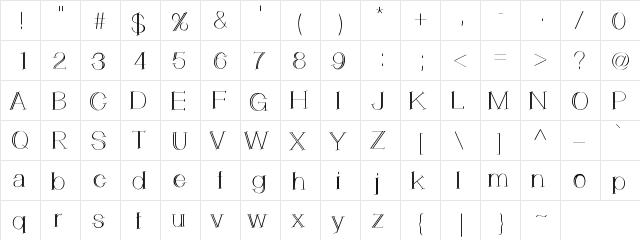
LemonCookie Medium Font Preview
LemonCookie Medium
Design Context for LemonCookie Typeface
LemonCookie is a composed and adaptable typeface that performs quietly and consistently across a wide range of design contexts.